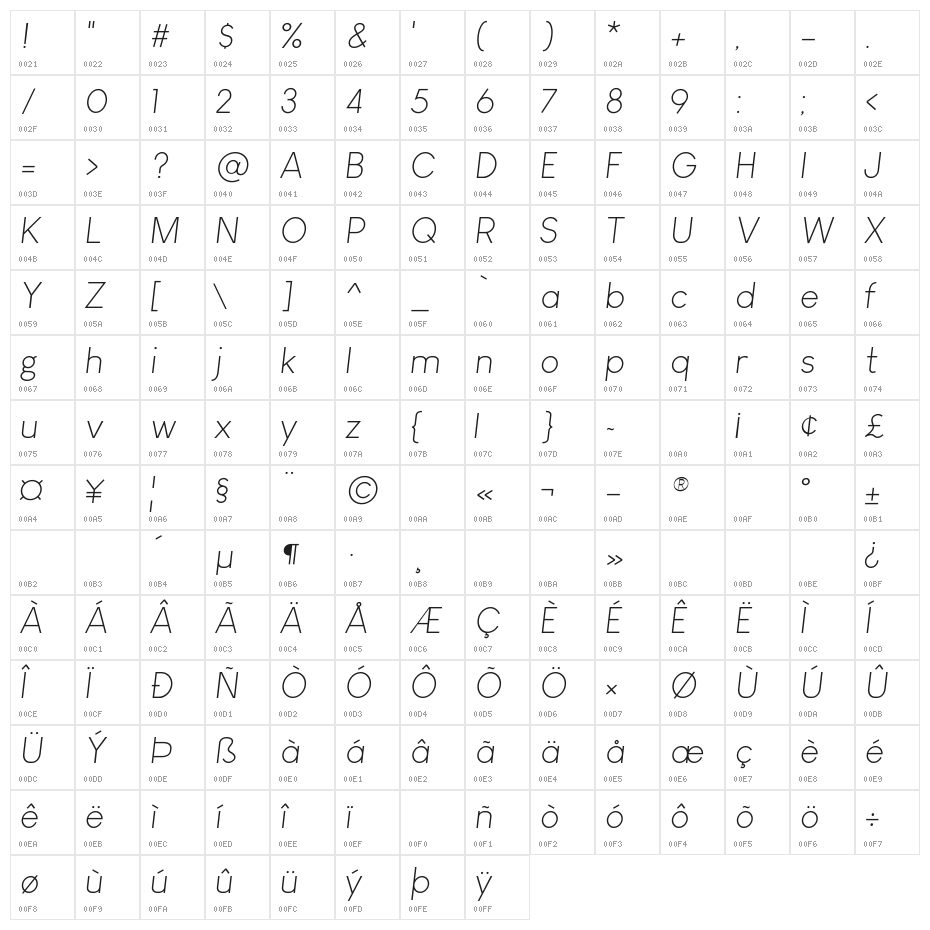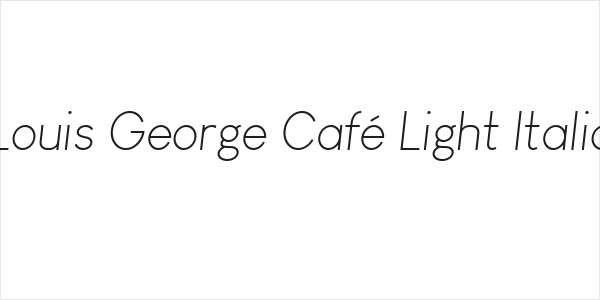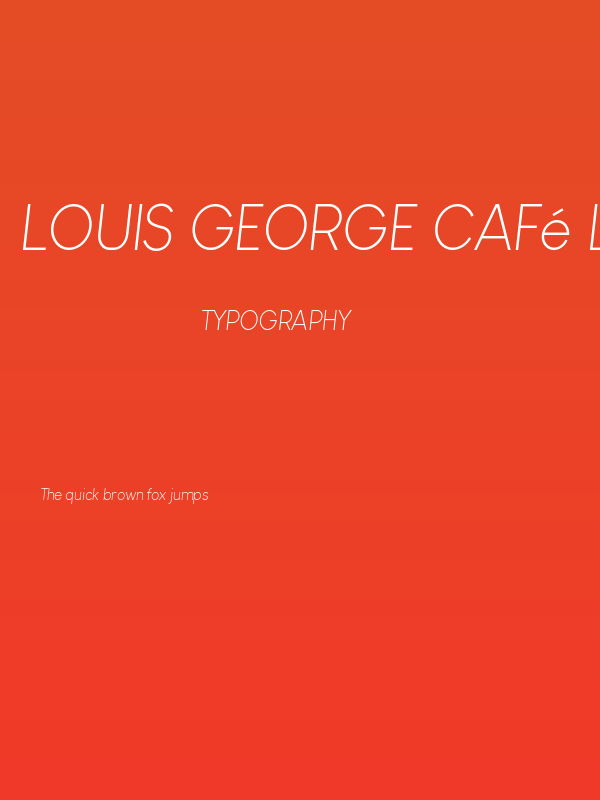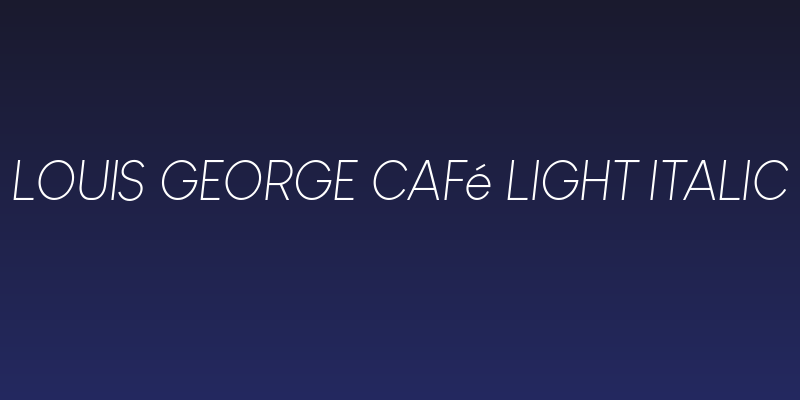
Louis George Café Light Italic Font
Louis George Café Light Italic Description
This font features a sleek and modern design with a light weight and italic style. The characters are elegantly crafted with smooth curves and a consistent stroke width, providing a clean and sophisticated appearance. The uppercase and lowercase letters maintain a harmonious balance, while the numerals and special characters are designed to complement the overall aesthetic. The font's minimalistic approach makes it versatile for various design applications.
| Proposed Projects | Ideal for branding, editorial design, websites, and modern advertising campaigns. |